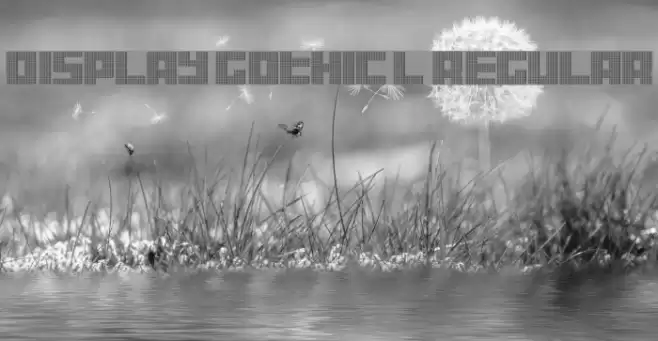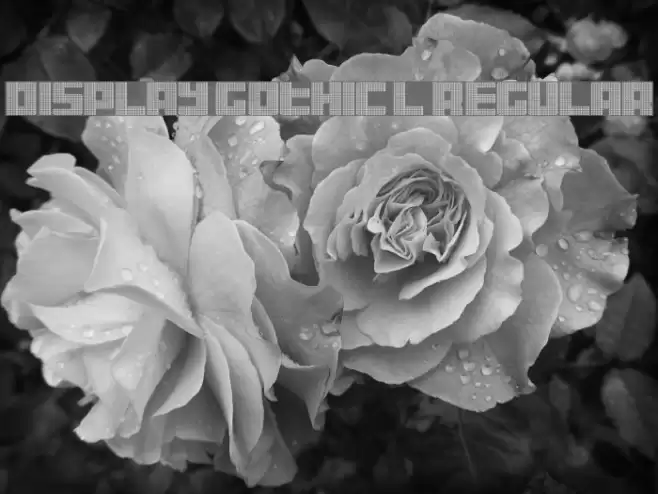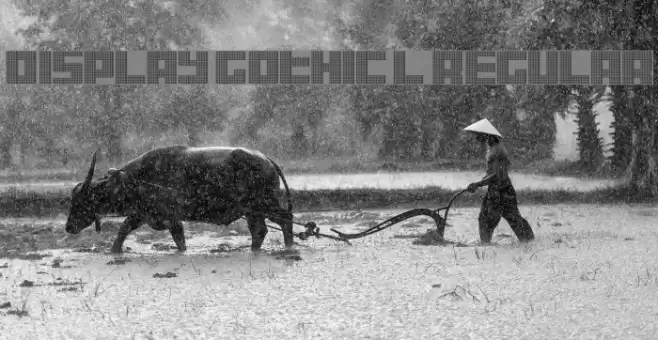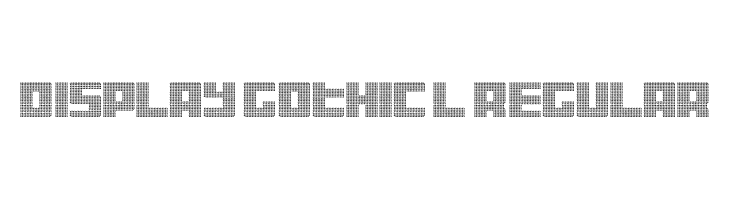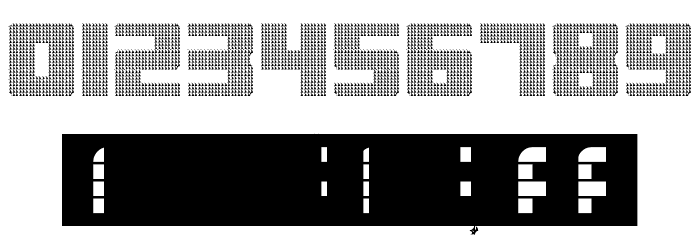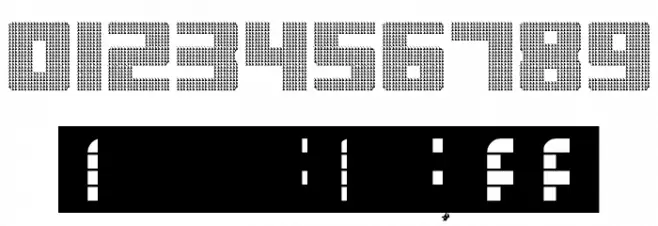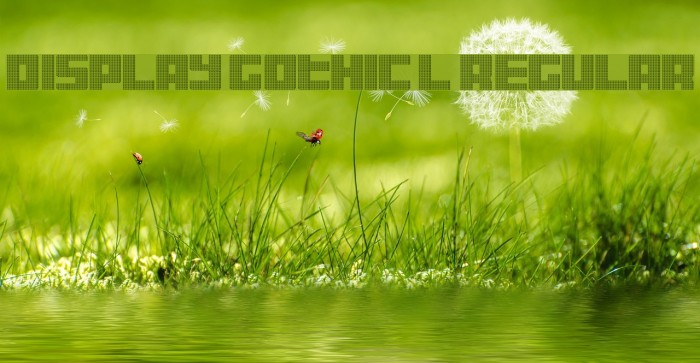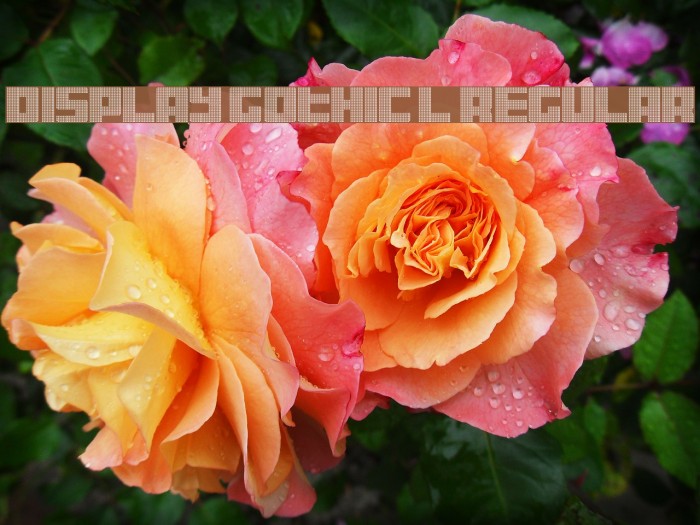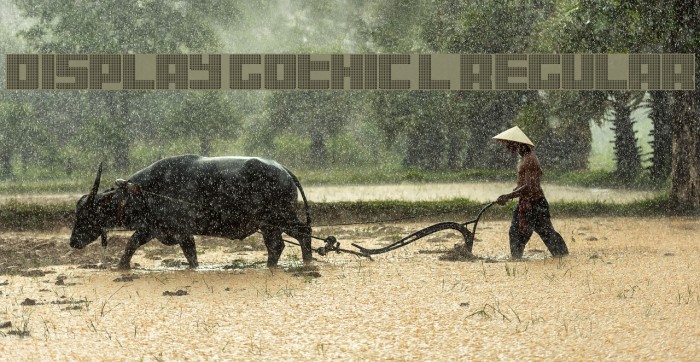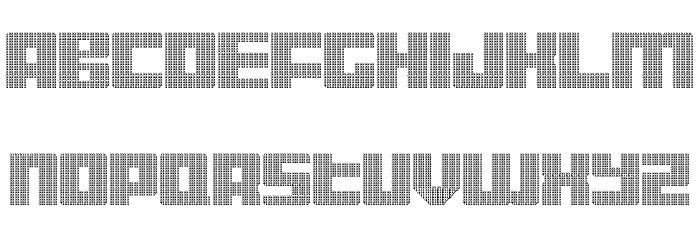
Display Gothic L Regular Font
Display Gothic L Regular Description
This font features a bold, geometric design with a distinct grid-like pattern that gives it a digital, futuristic appearance. The characters are constructed from a series of small, uniform squares, creating a pixelated effect reminiscent of early digital displays or dot matrix printers. The uppercase letters are uniform in height and width, contributing to a monospaced feel, while the numbers and special characters maintain the same stylistic approach. The overall look is both retro and modern, making it suitable for projects that require a tech-savvy or digital aesthetic. The font's unique structure makes it stand out, ideal for eye-catching headlines or display purposes.
A bold, geometric font with a pixelated, digital appearance from Uncategorized fonts.
- Proposed Projects: Ideal for digital-themed designs, tech branding, video game interfaces, and retro-style posters.
- Overall Style: Modern, Retro
- Use Case: Headlines, Logos, Display text